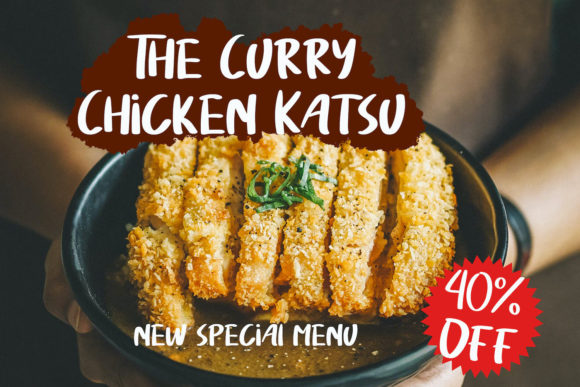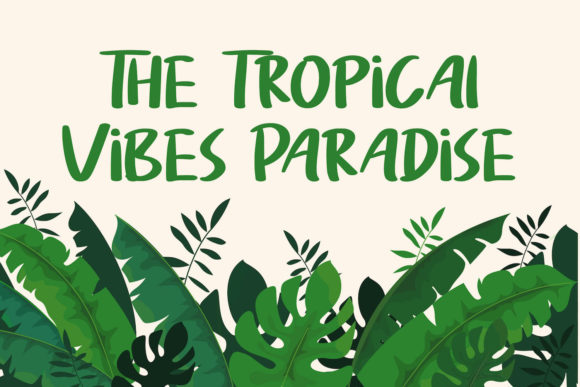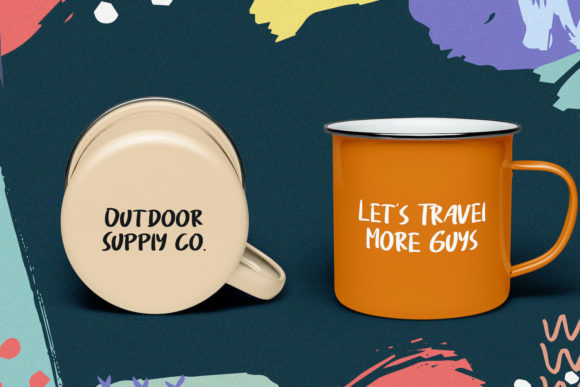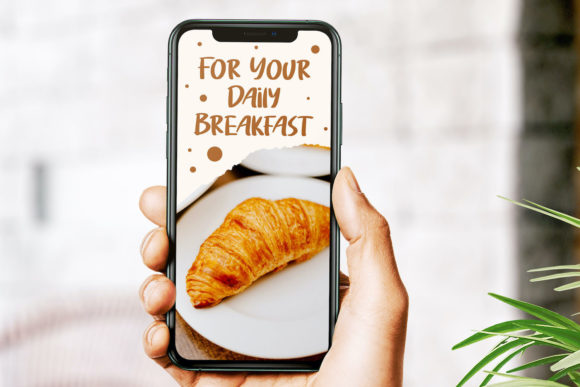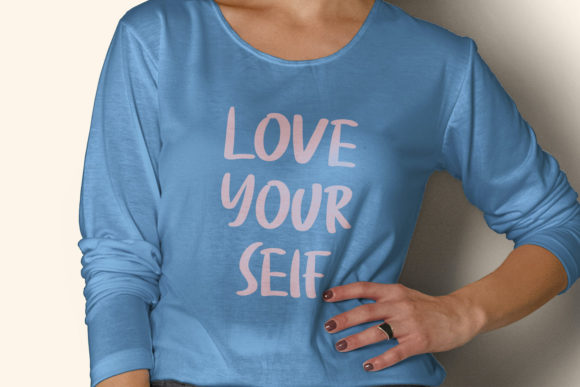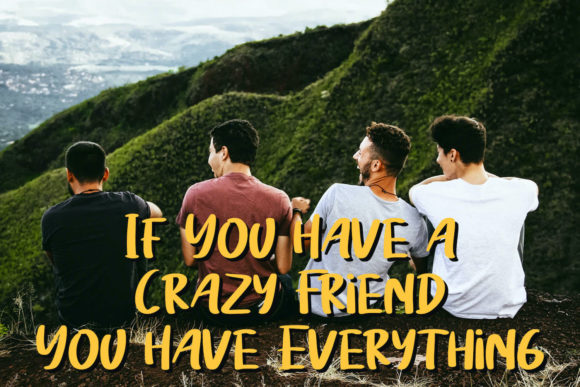
Introduction to Listan Type Font Font
Fonts play a crucial role in design, and the Listan Type Font font is a typeface that brings both character and versatility to any project. Whether you’re working on a branding project, a website, or a print design, the Listan Type Font font offers a unique style that can elevate your work.
Listan Type is a cute, natural and friendly handwritten font, that can be used for all chalkboard quotes or teaching material.
Its authentic look and feel will add a personal and realistic feel to your designs .
The Listan Type Font font is more than just a typeface – it’s a design tool that helps you communicate your message with style and clarity. Its unique character set and versatile design make it suitable for a wide range of applications, from elegant invitations to bold headlines.
With its carefully crafted letterforms and balanced proportions, the Listan Type Font font ensures readability and visual appeal across all mediums.
The Listan Type Font font stands out with its unique design, exceptional readability, and versatility across various design applications.